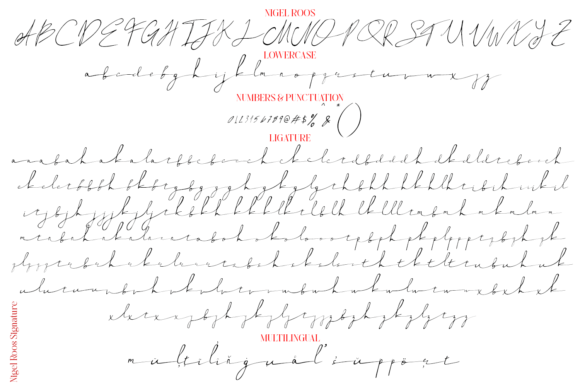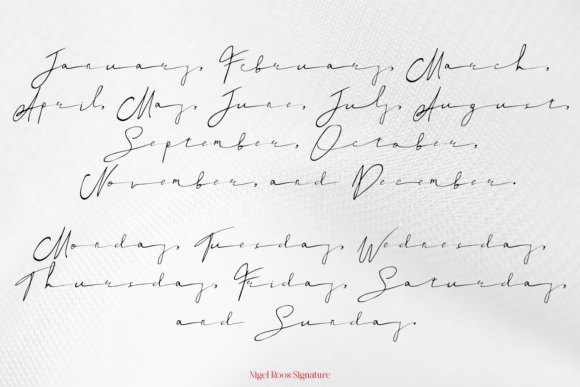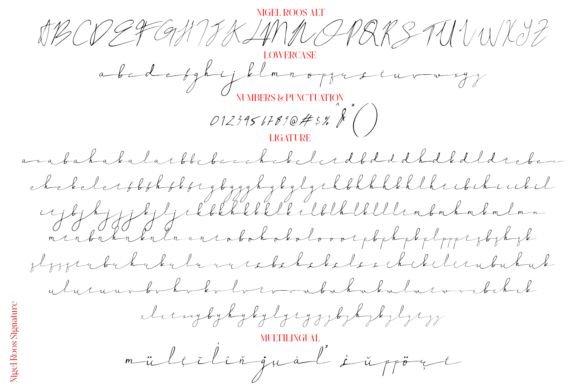
Introduction to Nigel Roos Font
Really excited to introduce Nigel Roos as a realistic signature to give an incredible impression for all your project design.
Nigel roos come with two alternative with extra swashes and more than 140 ligatures in each font to make everything look realistic handmade signature .
Nigel Roos Font offers exceptional quality and versatility, making it a valuable addition to your design toolkit. Whether you’re creating for personal projects or commercial use, Nigel Roos Font delivers professional results.